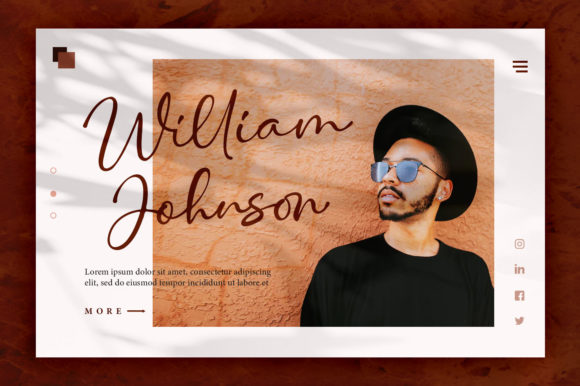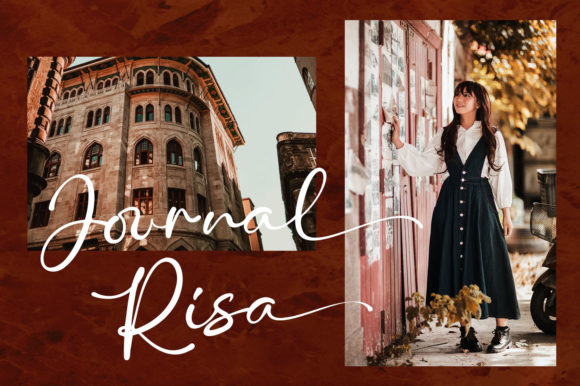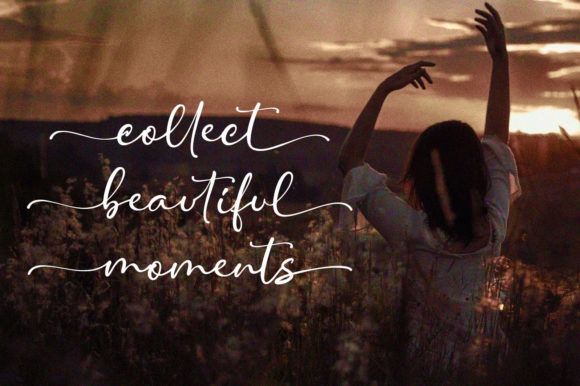
Introduction to Miguella Charlotte Font
Miguella Charlotte is an elegant and flowing handwritten font.
It has beautiful and well balanced characters that are perfect for designs such as: logos, stationery art, quotes, book covers, magazines, branding and much more Add it to your most unique ideas to make your projects stand out.
Why Choose Miguella Charlotte Font?
Miguella Charlotte Font offers exceptional quality and versatility, making it a valuable addition to your design toolkit. Whether you’re creating for personal projects or commercial use, Miguella Charlotte Font delivers professional results.